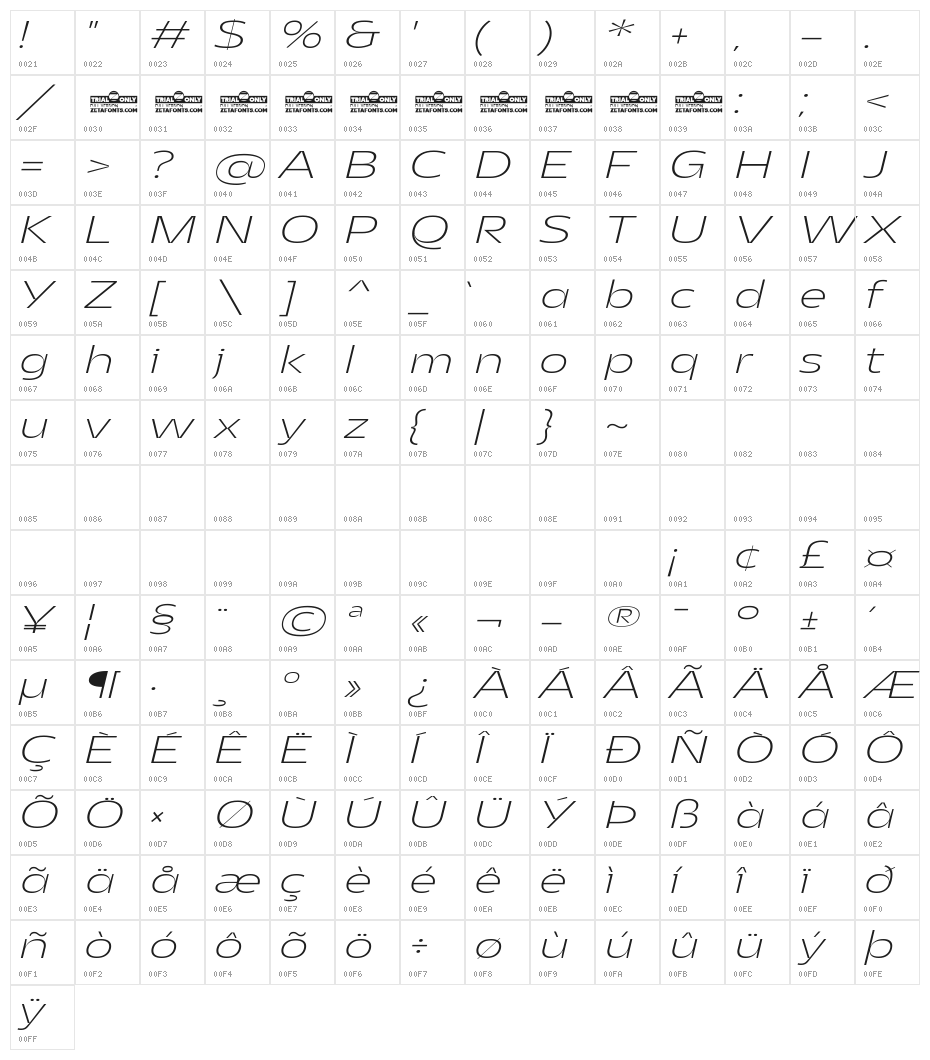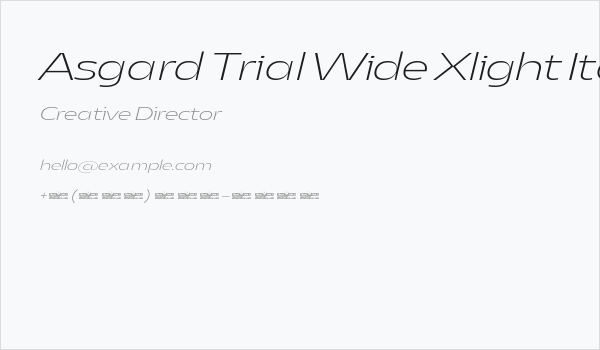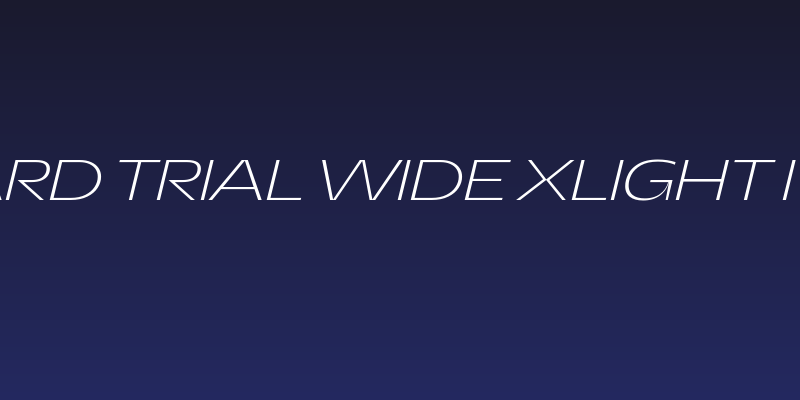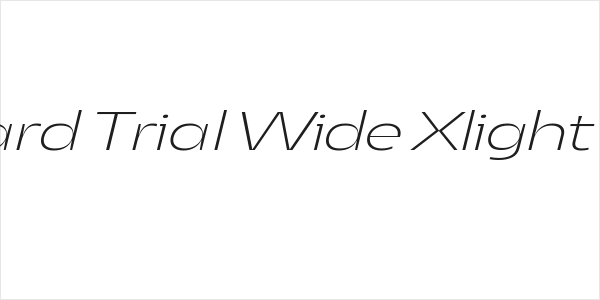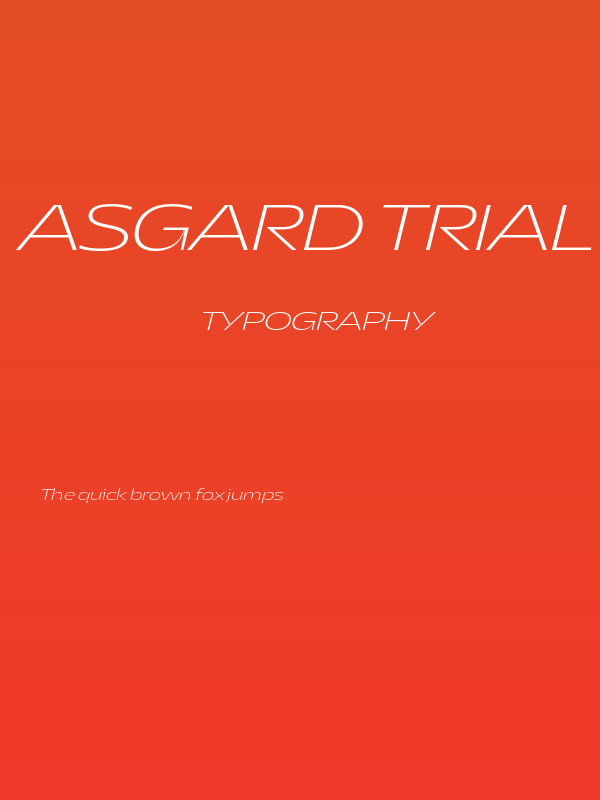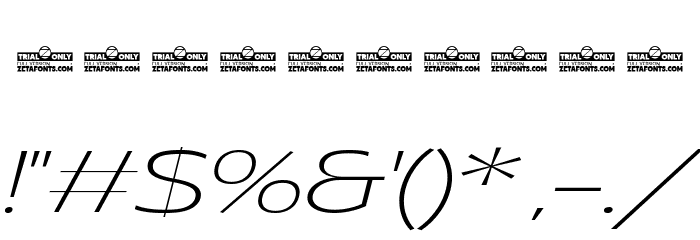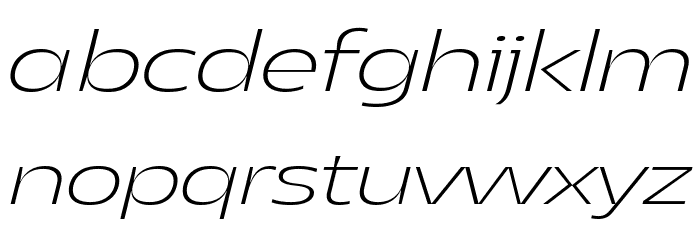
Asgard Trial Wide Xlight Italic Font
Asgard Trial Wide Xlight Italic Description
This font features a sleek and modern design with an italicized style that adds a sense of motion and elegance. The characters are thin and elongated, giving them an airy and sophisticated appearance. The wide spacing between characters enhances readability while maintaining a stylish look. The font's light weight and smooth curves make it suitable for contemporary design projects. Its minimalist aesthetic is complemented by a subtle contrast in stroke thickness, adding depth without overwhelming the eye. The font includes a full set of uppercase and lowercase letters, numbers, and a variety of special characters, making it versatile for various applications.
| Width | Expanded |
| Use Case | Headlines, Logos, Invitations |
| Proposed Projects | Ideal for fashion magazines, modern branding, elegant invitations, and minimalist website headers. |